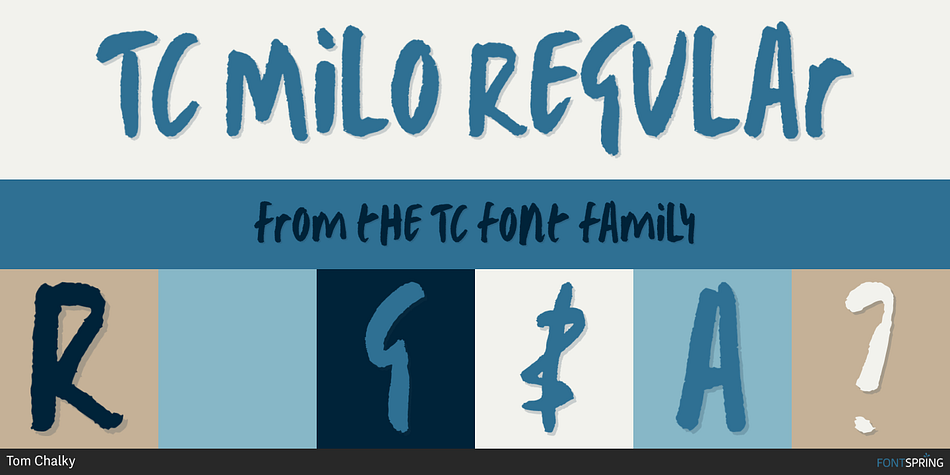
TC Milo Regular
TC is a font family. This typeface has eight styles and was published by Tom Chalky.
Proudly Introducing The Full’A'Quirks Handwritten Font Pack
Inside you’ll discover 4 expressively hand-lettered typefaces each with 4 unique alternates per letter (A-Z) to help you achieve the perfect authentic look!
Each typeface is stuffed with personality, quirkiness, and versatility. They work fantastically well with one another and modern serif/sans typefaces, across a broad range of design subjects, so be brave and don’t let their jovial appearance hold them/you back!
Before taking on this project, I had set myself the task of creating and launching the collection within 7 days (something that would typically take 4+ weeks) and as you can see, I didn’t sacrifice quality. By adding such a tight deadline, I had no choice but to lob the rulebook out the window and instead of overthinking each letter style and trying to create something authentic. I just did. Truth is, I couldn’t be happier with the end result and the 7-day deadline will be making many more appearances.
• Multilingual Support!
• 4 Letter Styles for Each Glyph (A-Z)
• Styles have been split between two fonts, making glyph selection much easier and accessible.